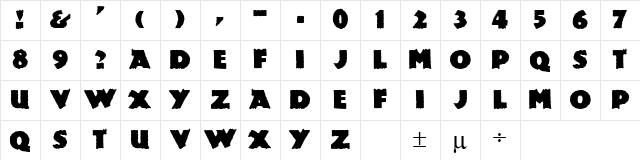
Lemiesz Regular Free Font
Lemiesz Regular
Design Context for Lemiesz
Lemiesz is a composed and adaptable typeface that performs quietly and consistently across a wide range of design contexts.